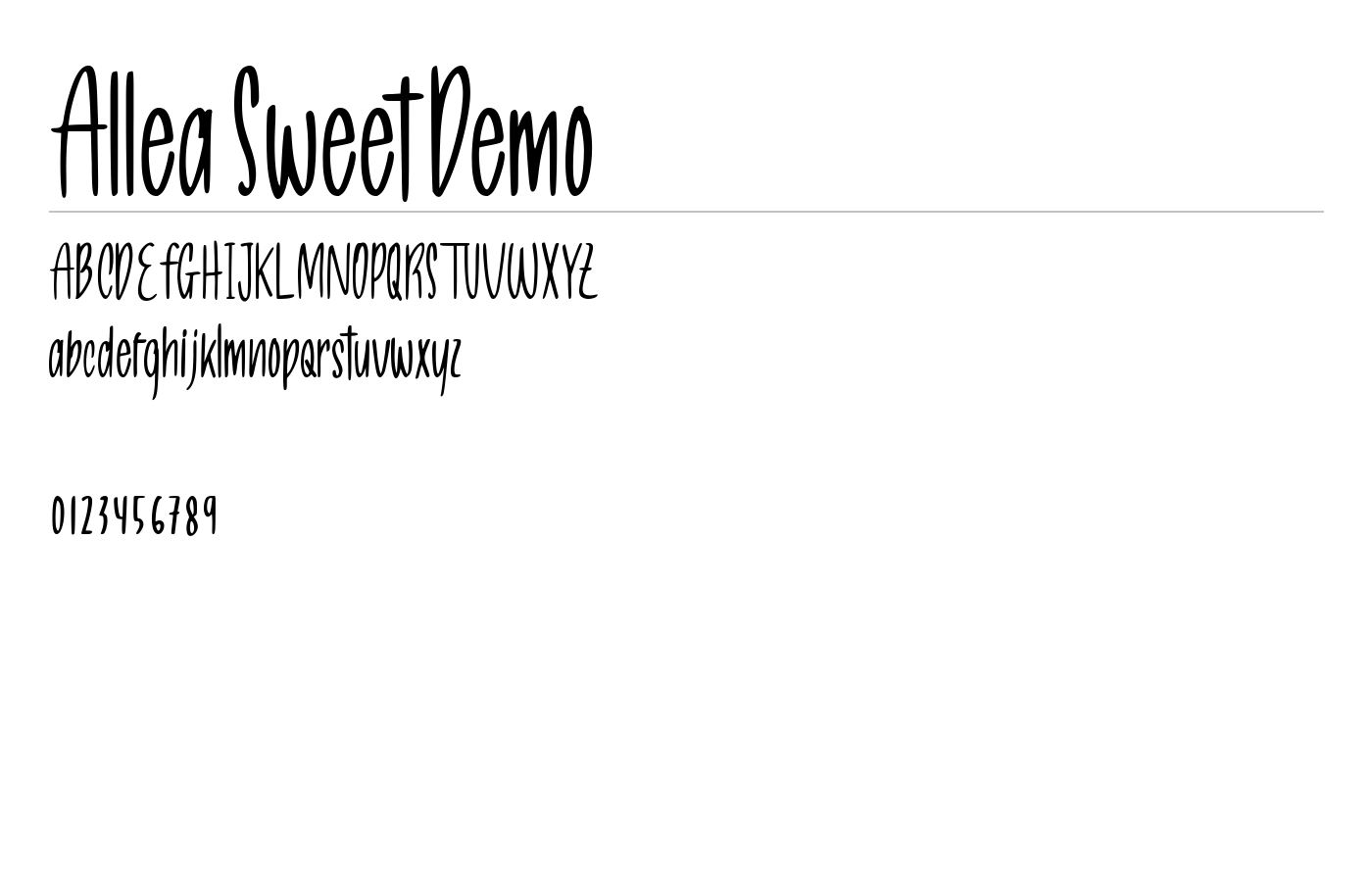
Allea Sweet Demo is a playful, narrow handwritten sans serif font with a tall x-height and smooth, rounded strokes that create a casual and friendly feel. Its slender letterforms and lively curves make it ideal for creative projects that seek a personal, approachable vibe, such as greeting cards, posters, or branding for fun and youthful products. This font works well in display use where a charming and informal style is desired.
Allea Sweet Demo Font
About Allea Sweet Demo Font